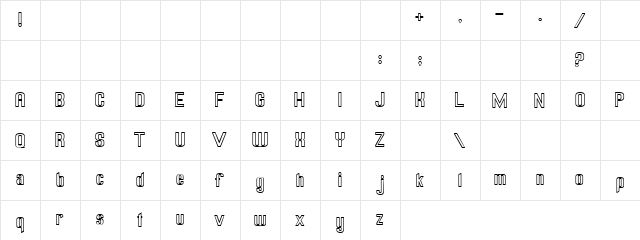
Chuttu Jinky Regular
Design Context for Chuttu Jinky Typeface
Chuttu Jinky offers clean, dependable letterforms without strong stylistic allegiance, making it a practical choice for designers who need flexibility.